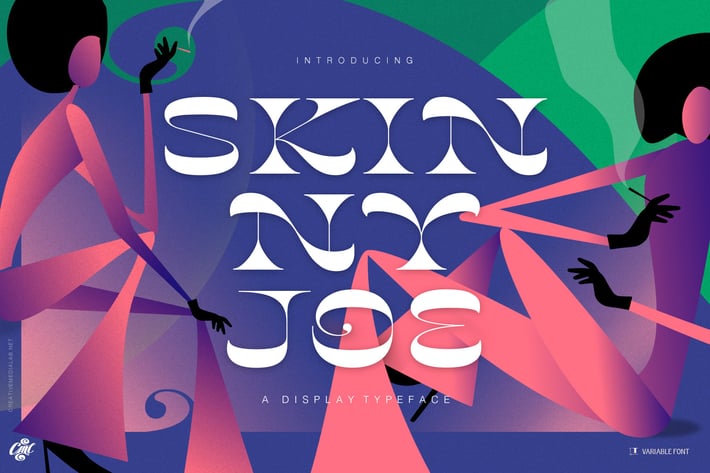
Skinny Joe - Variable font
Inspired by Bell Bottoms pants which is trending through the disco days of the 80s
Skinny Joe features a reverse contrast style with a retro and vintage look that’s simply ideal for summer theme concept such as posters, book cover, t-shirts, branding, logo, and many more.
Consists of 5 weights from thin to bold and a variable format. Skinny Joe also has alternatives for more decorative and unique looks.
Skinny Joe features a reverse contrast style with a retro and vintage look that’s simply ideal for summer theme concept such as posters, book cover, t-shirts, branding, logo, and many more.
Consists of 5 weights from thin to bold and a variable format. Skinny Joe also has alternatives for more decorative and unique looks.